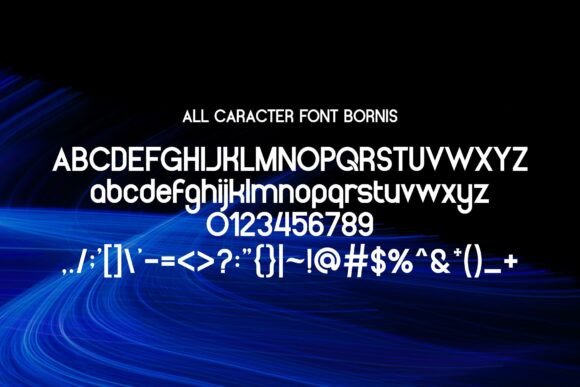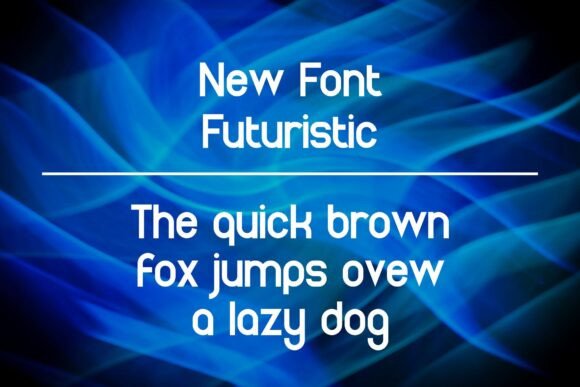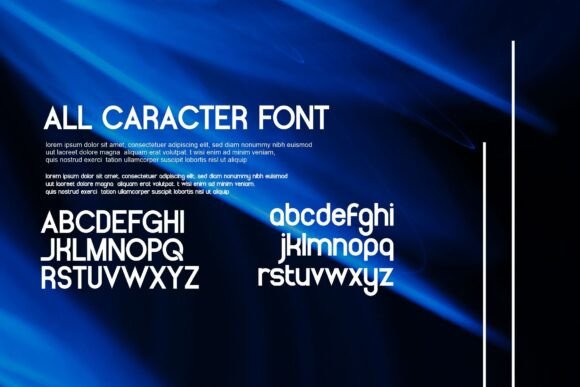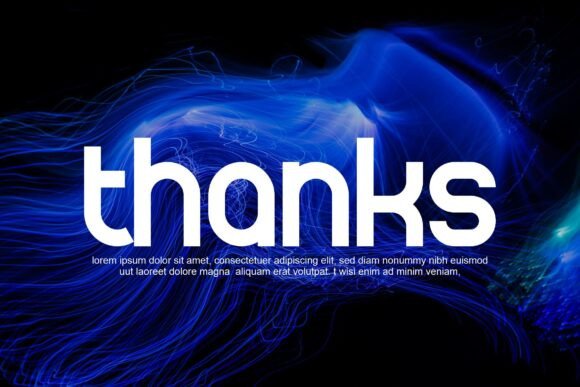
The Perfect Typography Partner: Bornis Font
Have you ever found yourself staring at a blank canvas, trying to bring a brilliant idea to life? The blank page can be intimidating, but the right tools can make all the difference. For designers, the perfect typography partner can elevate a project from good to great. And that’s exactly what Bornis Font is designed to do.
Bornis Font is a bold and assertive sans serif font that’s perfect for any project. Whether you’re creating a logo, a website, or a brochure, this font has the potential to take your design to the next level. Its versatility and modern feel make it an incredible asset to any font library.
Bornis Font Key Features
- Font Family: Bornis Font is a sans-serif typeface designed for digital use.
- Size: The font family consists of 6 weights, ranging from Thin to Black.
- Unique Characteristics: Bornis Font features a modern and clean design, with optimized letterforms for improved legibility at small sizes.
- Resolution: Designed for use at high resolutions, ideal for screens and digital displays.
- Font Size Range: Suitable for body text and headings, with an x-height of approximately 95%.
Designer Review: Bornis Font
Overall, I think the Bornis font has some great qualities, but it also has some areas that need improvement.
- Unique and modern design: The Bornis font has a fresh, modern look that’s perfect for trendy designs and branding.
- High-quality rendering: The font renders well at various sizes and resolutions, making it suitable for a range of applications.
- Wide language support: The font supports a wide range of languages, including many non-Latin scripts, which is a big plus.
- Limited expressiveness: While the font is modern and stylish, it may lack the expressiveness and nuance of more traditional serif fonts.
- Not ideal for body text: The font’s bold, modern style may not be the best choice for large blocks of body text, where readability is key.
- No italic or oblique styles: The font is missing italic and oblique styles, which can be a limitation for designers who need to create text that requires these styles.
The Bornis font is a solid choice for designers who want a modern, stylish font for headings, titles, or branding. However, it may not be the best choice for body text or projects that require a more traditional, expressive font. With some limitations, but also some great qualities, I would give the Bornis font 3.5 out of 5 stars.
Getting the Most Out of Bornis Font
To get the most out of Bornis Font, try the following:
Pair it with bold or italic fonts for added emphasis.
Use it for headings and titles to create a clear visual hierarchy.
Bornis Font is commonly used for:
Headings and titles.
Body text for websites and blogs.
Designing business cards and resumes.
Alternatives to Bornis Font for Designers
Playfair Display is a high-end serif font with elegant, luxurious, and sophisticated features. It is suitable for use in high-end branding, luxury products, and fine art projects. When to use: For projects that require a touch of elegance and sophistication.
Comparison to Bornis Font: While both fonts are serif, Playfair Display is more ornate and luxurious, whereas Bornis Font is more classic and timeless. Playfair Display is better suited for projects that require a high-end feel, whereas Bornis Font is more versatile and can be used in a variety of contexts.
Great Vibes is a modern, elegant script font with a relaxed, casual feel. It is suitable for use in branding, advertising, and editorial projects. When to use: For projects that require a touch of sophistication and elegance, but also a relaxed, casual feel.
Comparison to Bornis Font: While both fonts are elegant, Great Vibes is more modern and relaxed, whereas Bornis Font is more classic and timeless. Great Vibes is better suited for projects that require a casual, approachable feel, whereas Bornis Font is more versatile and can be used in a variety of contexts.
Merriweather is a classic, elegant serif font with a strong, timeless feel. It is suitable for use in branding, advertising, and editorial projects. When to use: For projects that require a touch of sophistication and elegance, but also a strong, classic feel.
Comparison to Bornis Font: While both fonts are classic and elegant, Merriweather is more traditional and formal, whereas Bornis Font is more versatile and can be used in a variety of
What is the recommended font size for Bornis Font?
The recommended font size for Bornis Font varies depending on the intended use and the size of the text. For body text, we recommend using font sizes between 12pt and 14pt. For headings and titles, you can use larger font sizes, up to 24pt or more. Always test the font size in your design application to ensure the text is readable and visually appealing.